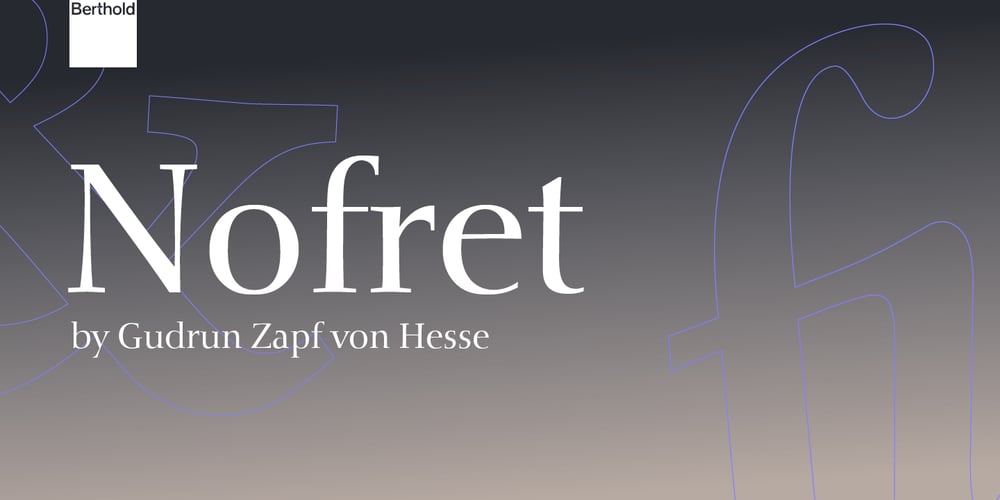
Nofret Font Family was designed by Gudrun Zapf-von Hesse and published by Berthold. Nofret contains 8 styles and family package options. Designed by Gudrun Zapf-von Hesse, Berthold released Nofret in 1984. This contemporary serif recalls her earlier design, Diotima. Narrower in proportion, it is an elegant typeface with calligraphic influences and beautiful italics.